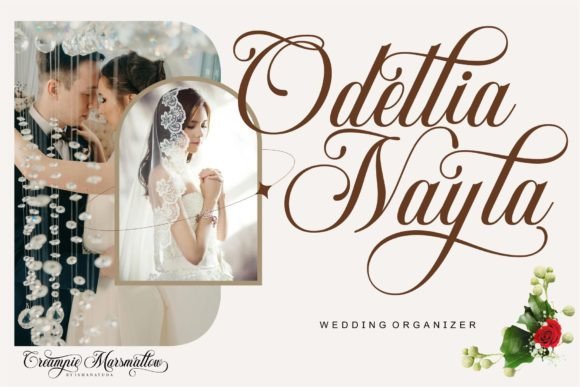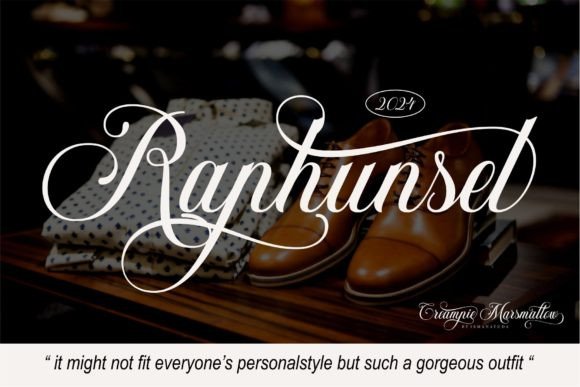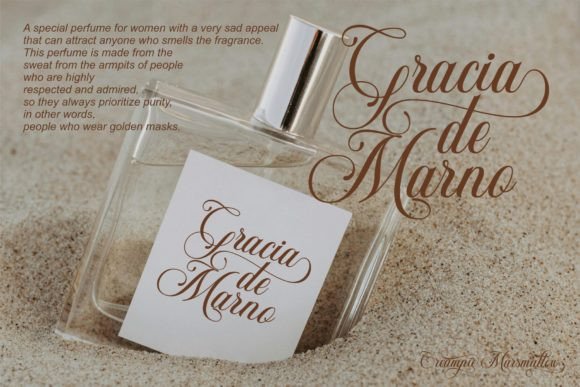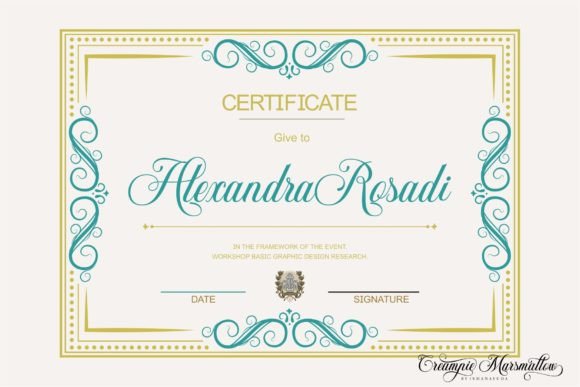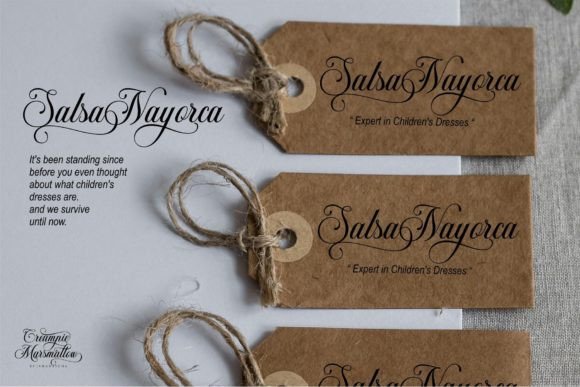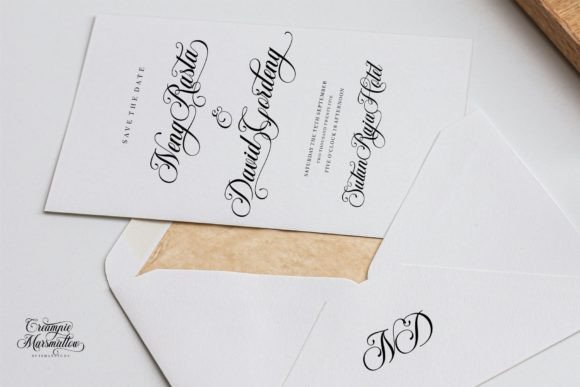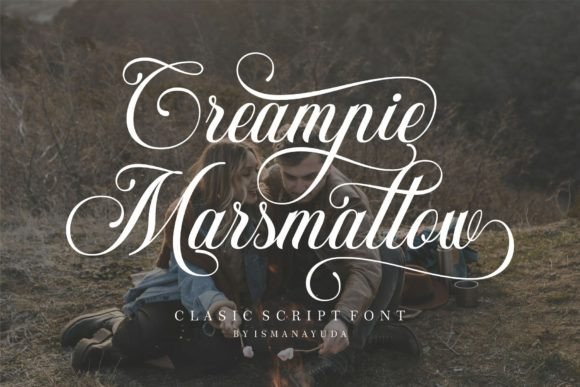
Introducing Creampie Marsmallow Font: Elevate Your Designs with Elegance and Sophistication
In the world of typography, fonts play a crucial role in conveying the tone and personality of a design. For those seeking a touch of elegance and coolness in their creations, the Creampie Marsmallow font is an excellent choice. This beautiful font combines the fluidity of script writing with the sophistication of calligraphy and italic styles, making it perfect for wedding invitations, display texts, and various design projects.
What Makes Creampie Marsmallow Unique?
Creampie Marsmallow is a font that uses a script or continuous vertical writing style but is given a calligraphy and italic feel. This unique blend of styles enables the font to convey an elegant and cool impression, setting it apart from more traditional fonts. The vertical script style provides a sense of fluidity and movement, while the calligraphy and italic elements add a touch of sophistication and refinement.
Key Features of Creampie Marsmallow Font
• Elegant and Cool Impression: The combination of script, calligraphy, and italic styles creates a distinctive look that is both elegant and cool, making it suitable for designs that require a touch of sophistication.
• Versatile Usage: Creampie Marsmallow is perfect for a wide range of design projects, including wedding invitations, greeting cards, posters, and any display text that requires a unique and stylish font.
• Script and Vertical Writing Style: The font’s script and vertical writing style give it a fluid and dynamic appearance, making it stand out from more conventional fonts.
• Calligraphy and Italic Feel: The addition of calligraphy and italic elements enhances the font’s elegance and sophistication, making it ideal for designs that require a high level of refinement.
Using Creampie Marsmallow for Wedding Invitations and Display Needs
Wedding invitations and display texts require a font that can convey the desired tone and atmosphere. Creampie Marsmallow is an excellent choice for these types of designs due to its elegant and cool impression. The font’s unique blend of script, calligraphy, and italic styles makes it perfect for:
• Wedding invitations: Add a touch of sophistication and elegance to your wedding invitations with Creampie Marsmallow.
• Greeting cards: Create beautiful and stylish greeting cards for special occasions.
• Posters and flyers: Use Creampie Marsmallow to add a unique and eye-catching element to your posters and flyers.
• Display texts: Elevate your display texts with a font that is both elegant and cool.
Creampie Marsmallow is a unique and stylish font that can elevate your designs with its elegant and cool impression. Its blend of script, calligraphy, and italic styles makes it perfect for wedding invitations, display texts, and various design projects. By incorporating Creampie Marsmallow into your designs, you can add a touch of sophistication and refinement that will set your work apart.